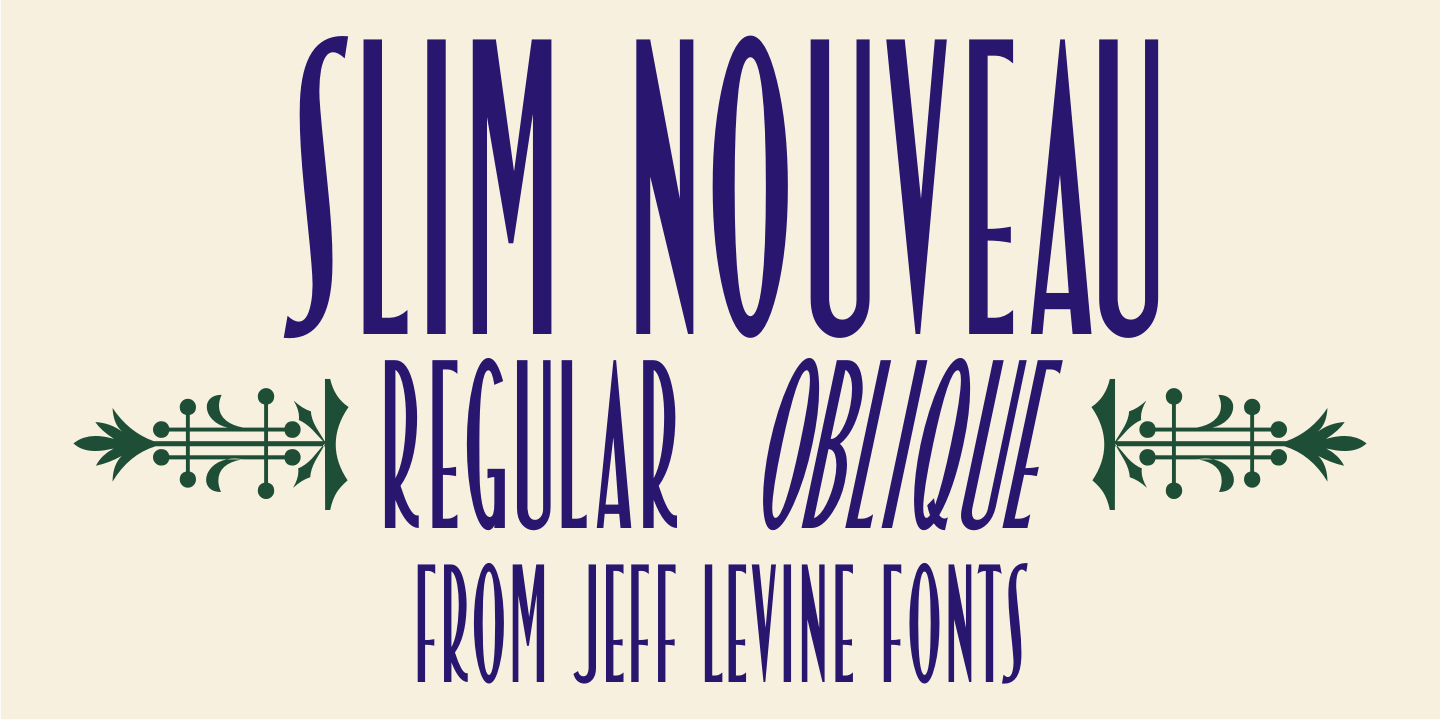
Slim Nouveau
At times, one source of inspiration can generate more than one idea. This was the case with the 1918 sheet music for the song "You're Still an Old Sweetheart of Mine'. The cover displays the title in a hand lettered narrow Art Nouveau Sans serif style.
A number of characters were revised and the overall font was compressed by 25% to create a whole new look and feel. The end result became Slim Nouveau JNL.
This was the same material used to originally model Easy Money JNL, which is truer to the original lettering design. The font is available in both regular and oblique versions.